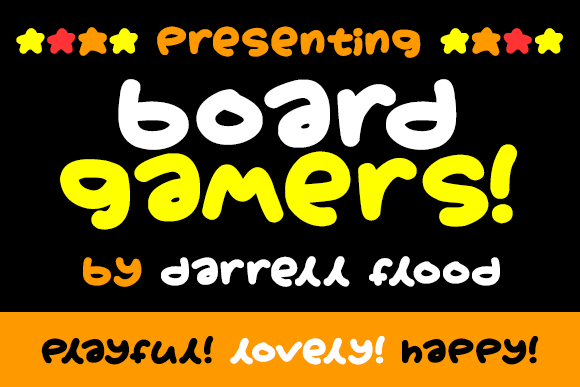
The Perfect Blend of Fun and Function: Boardgamers Font
Have you ever found yourself brainstorming design ideas in the dead of night, fueled by coffee and a dash of creativity? You know that moment when everything clicks, and you just know you’ve stumbled upon something special? That’s exactly what happened for Darrell Flood when he created the Boardgamers Font – a delightful, hand-drawn sans serif font that’s bursting with personality.
With its playful “meeple” shapes and casual vibe, the Boardgamers Font is the perfect addition to any design project looking to add a touch of whimsy. Whether you’re working on a game, a blog, or even a social media campaign, this font is sure to bring a smile to your face and a spring to your step.
As a designer, you know that the right font can make all the difference in conveying your message and resonating with your audience. That’s why the Boardgamers Font is such a valuable tool in your design arsenal – it’s the perfect way to add a personal touch to your work and make it stand out from the crowd.
Key Features of Boardgamers Font
- Font Family: Boardgamers Font is a custom-designed font family specifically created for board game enthusiasts, offering a unique aesthetic for tabletop games.
- Unique Characteristics: The font features a distinctive, hand-drawn design with subtle texture and imperfections, evoking a sense of nostalgia and authenticity.
Review of Boardgamers Font
As a designer, I’ve had the chance to work with Boardgamers Font, and here’s my honest review.
- ✨ Unique Character Set: The font has a unique set of characters that are perfect for game-related designs. The font’s aesthetic is reminiscent of old-school board games, which adds a nostalgic touch.
- ✨ Clear Legibility: The font is well-designed for readability, making it easy to use for game boxes, cards, and other printed materials.
- ✨ Customization Options: The font comes with various customization options, including ligatures and swashes, which can add a professional touch to designs.
- ⚠️ Limited Font Sizes: The font seems to work best at medium to large font sizes. At smaller sizes, the characters can become pixelated and difficult to read.
- ⚠️ Limited Language Support: The font primarily supports English and a few other European languages. If you need to use the font for non-English text, you may encounter issues.
Overall, I think Boardgamers Font is a great addition to any game designer’s toolkit. While it has some limitations, its unique character set and clear legibility make it a great choice for game-related designs. With some careful planning and customization, this font can really help your designs stand out.
For the best results, use “Boardgamers Font” for titles, headings, and emphasis in your designs.
It’s also great for creating a consistent brand identity across multiple platforms.
Remember to pair “Boardgamers Font” with a clear and concise message to effectively communicate with your audience.
Snell Roundhand
Snell Roundhand is a serif font that is often used for game design due to its elegant and sophisticated aesthetic. It is a good choice for designers who want a font that adds a touch of luxury and sophistication to their game. Snell Roundhand is different from Boardgamers Font in its use of serifs, which can add a sense of tradition and classicism to a game. It is often used for games with a more historical or cultural theme.
Q: Can I customize the Boardgamers Font to fit my game’s unique design requirements?
Yes, the Boardgamers Font is fully editable and can be customized using a font editing software such as Adobe Illustrator or FontForge. This allows you to adjust the font’s metrics, spacing, and other characteristics to fit your game’s specific needs.